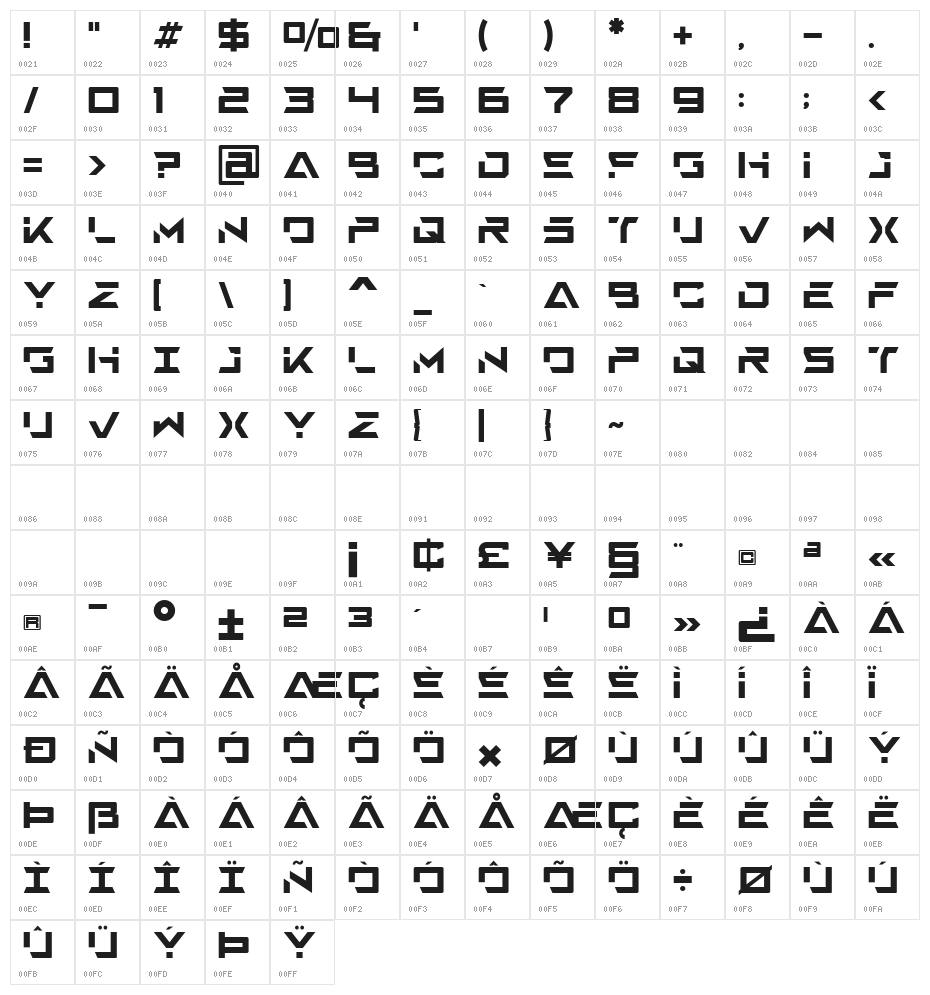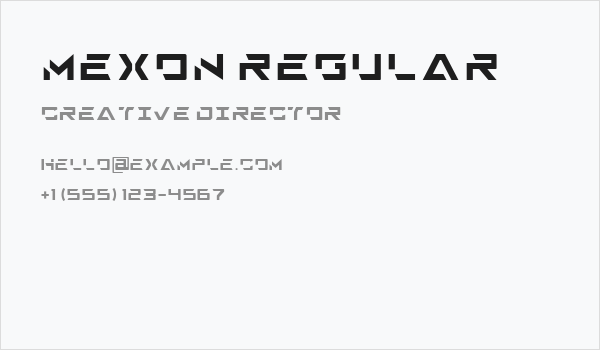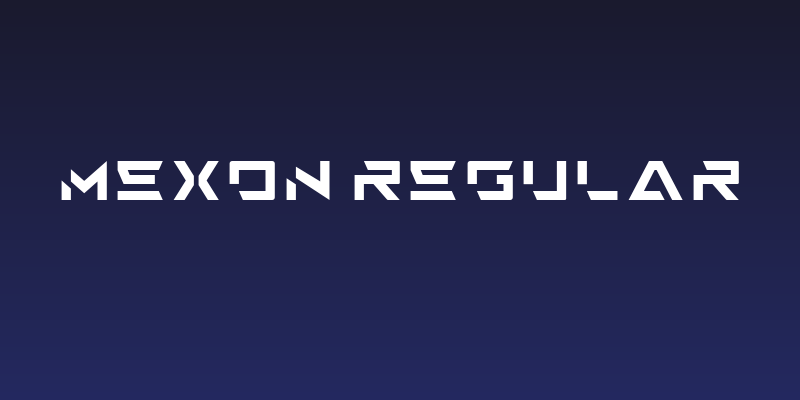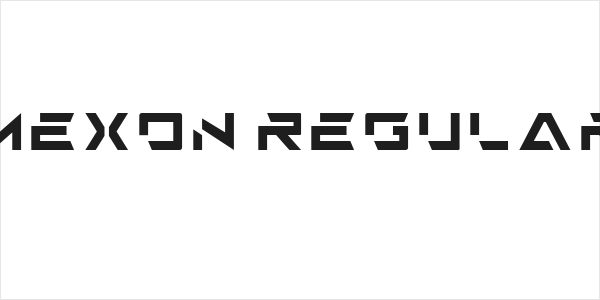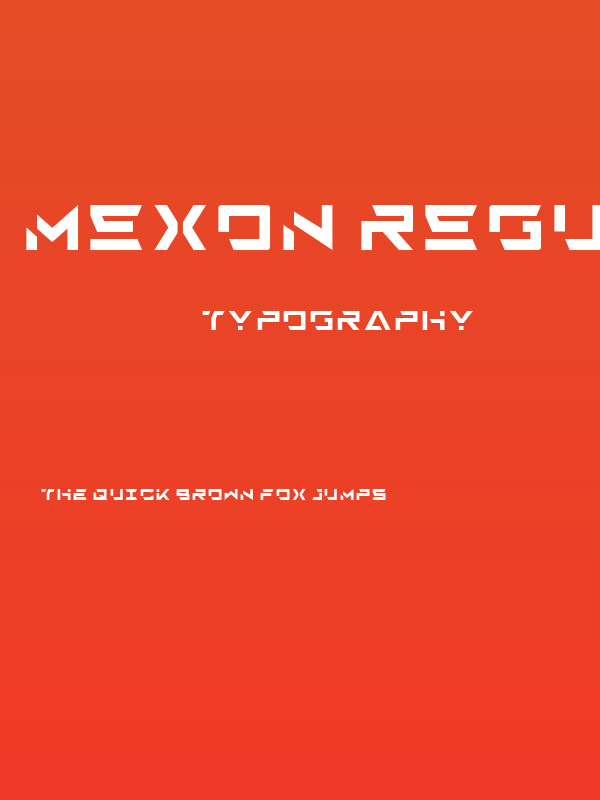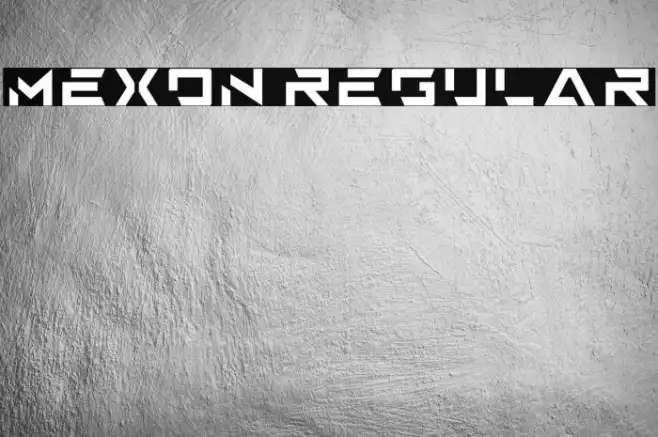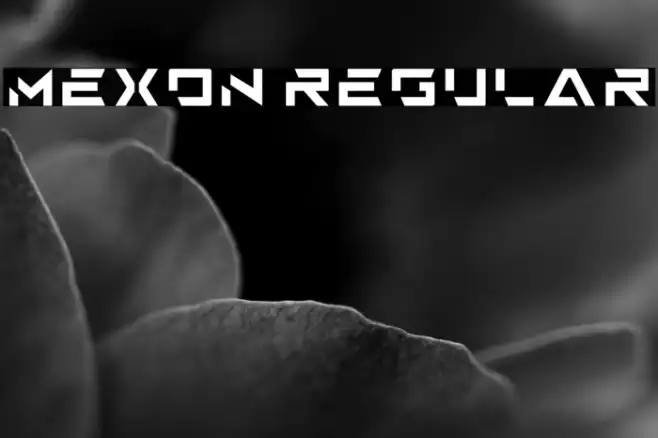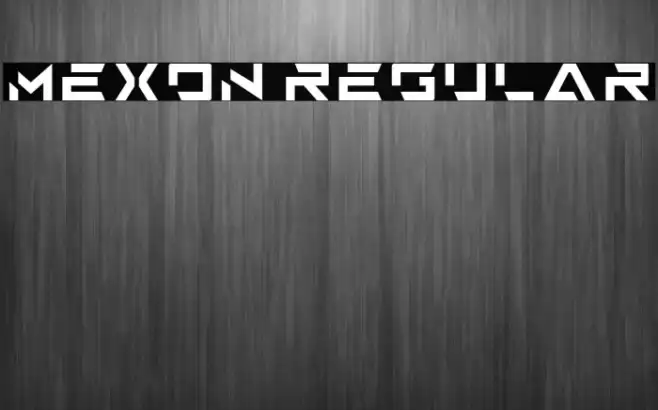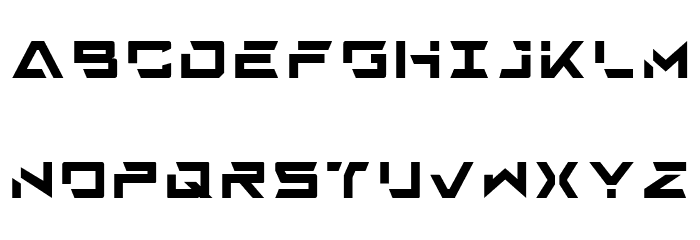
Mexon Regular Font
Mexon Regular Description
This font features a bold, geometric design with angular shapes and a futuristic aesthetic. The characters are constructed with sharp edges and cut-out sections, giving it a unique, digital appearance. The uppercase and lowercase letters maintain a consistent style, with a strong emphasis on symmetry and alignment. Numbers and special characters follow the same design principles, ensuring uniformity across all glyphs. The font's distinct style makes it ideal for projects that require a modern, tech-inspired look.
| Proposed Projects | Ideal for technology branding, video game titles, sci-fi movie posters, and digital art projects. |